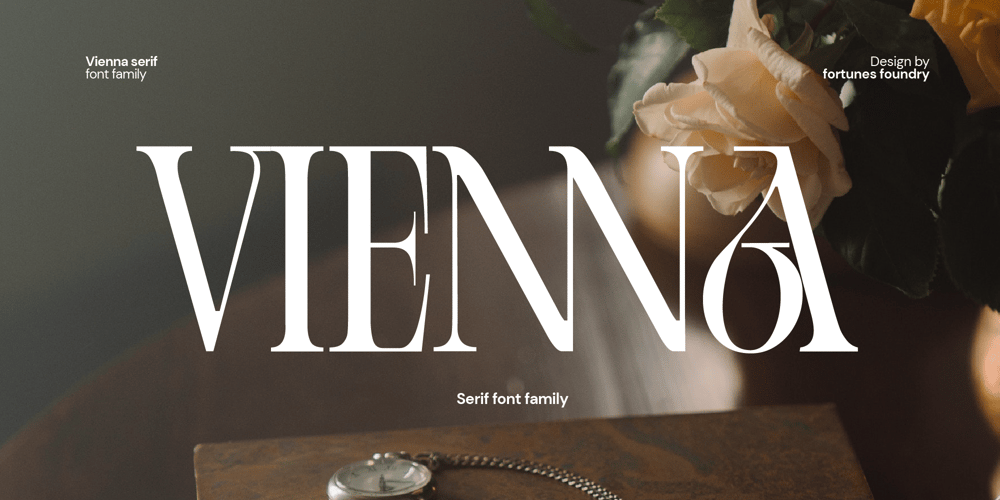
Fd Vienna Font Family was designed by Ramandhani Nugraha and published by Fortunes Co. Fd Vienna contains 4 styles and family package options. Vienna is Modern Serif is a font style that blends traditional and modern design elements to create a distinct, stylish look. This typeface is characterized by serifs, or small lines added to the end of a stroke, that give it a classic and sophisticated feel.The font is often used in high-end fashion magazines and advertisements to evoke a sense of luxury and elegance. Fashion serif typeface is versatile and can be used for various purposes, from headings and titles to body text. Overall, this typeface is a perfect choice for designers looking to create a high-end, fashionable aesthetic.